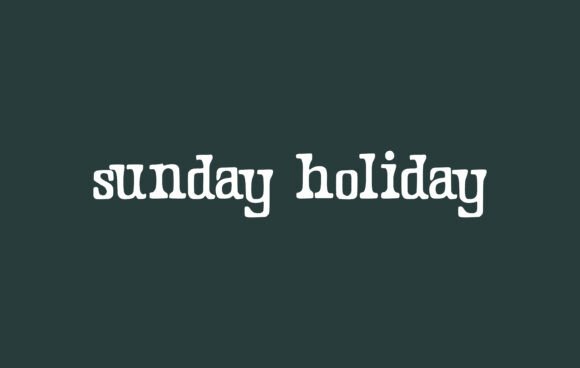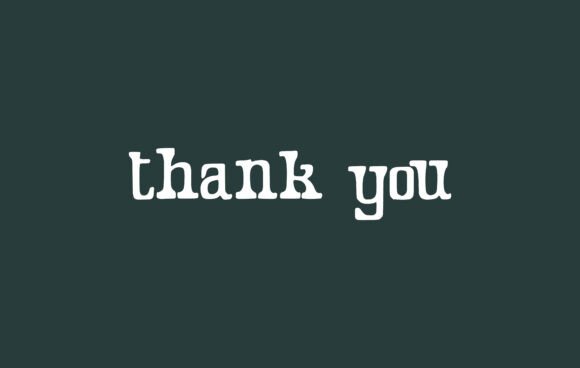
Introduction to Sheriff Badge Font
As a designer, there’s nothing quite like the rush of finding the perfect font to bring your creative project to life. You’re browsing through a collection of free downloads, searching for that one special something that will make your design stand out from the crowd. And then, suddenly, you stumble upon it – the Sheriff Badge Font. Its authentic, handwritten style is like a breath of fresh air, and you can’t help but feel a sense of excitement and possibility.
But what makes the Sheriff Badge Font so valuable for designers? For one, its high-quality design is perfect for a wide range of creative projects, from magazine headlines to social media posts. Its transparent background makes it easy to use on any background, and its legibility ensures that your message will be clear and concise. Whether you’re working on a branding project, a wedding invitation, or a simple card, the Sheriff Badge Font is sure to be a hit.
Key Features of Sheriff Badge Font
- Unique, high-quality design for creative projects, ideal for use in law enforcement and western-themed designs.
- Perfect for use in graphic design, logo creation, and other creative projects requiring a unique, western-themed element.
Honest Review: Sheriff Badge Font
I recently stumbled upon the Sheriff Badge Font and I must say it’s a great addition to any designer’s toolkit. This free download is perfect for those looking for a high-quality design resource for their creative project.
- ✨ The font’s unique design is reminiscent of classic sheriff badges, making it a great choice for projects that require a touch of nostalgia.
- ✨ The transparent background option allows for seamless integration into various design elements.
- ✨ The font is highly customizable, making it easy to adjust to fit your specific design needs.
- ⚠️ The font may not be suitable for projects that require a more modern or sleek aesthetic.
- ⚠️ The font’s design may be too bold for certain design elements, so be sure to test it before finalizing your design.
Overall, I’m impressed with the Sheriff Badge Font. It’s a great resource for designers looking to add a unique touch to their creative project. With its high-quality design and customizable options, it’s definitely worth checking out.
Getting the Most Out of Sheriff Badge Font
To get the most out of the Sheriff Badge Font, use it for creative projects such as:
- Western-themed designs
- Law enforcement logos
- Wild West-inspired artwork
The Sheriff Badge Font is perfect for designers who want to add a touch of authenticity to their western-themed designs. It’s also great for creating custom logos, icons, and graphics for law enforcement agencies or western-themed businesses.
How it compares: While Sheriff Badge Font is more modern and sleek, Old West Font offers a more traditional, rustic look.